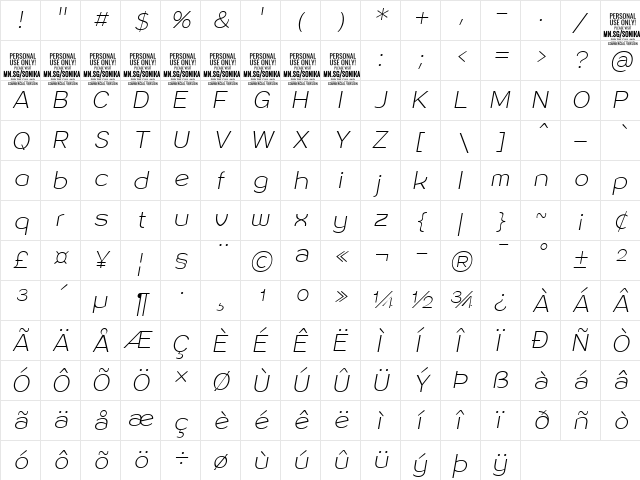
Sonika PERSONAL USE Thin Italic Font Preview
Design Context for Sonika PERSONAL USE Typeface
Sonika PERSONAL USE is a composed and adaptable typeface that performs quietly and consistently across a wide range of design contexts. Its italic angle brings a sense of urgency and motion to the letterforms. The delicate stroke weight brings airiness and refinement to layouts.
Pro Tip: Try Sonika PERSONAL USE for annotation and caption copy alongside an upright companion — the contrast in angle creates a dynamic but ordered typographic system.